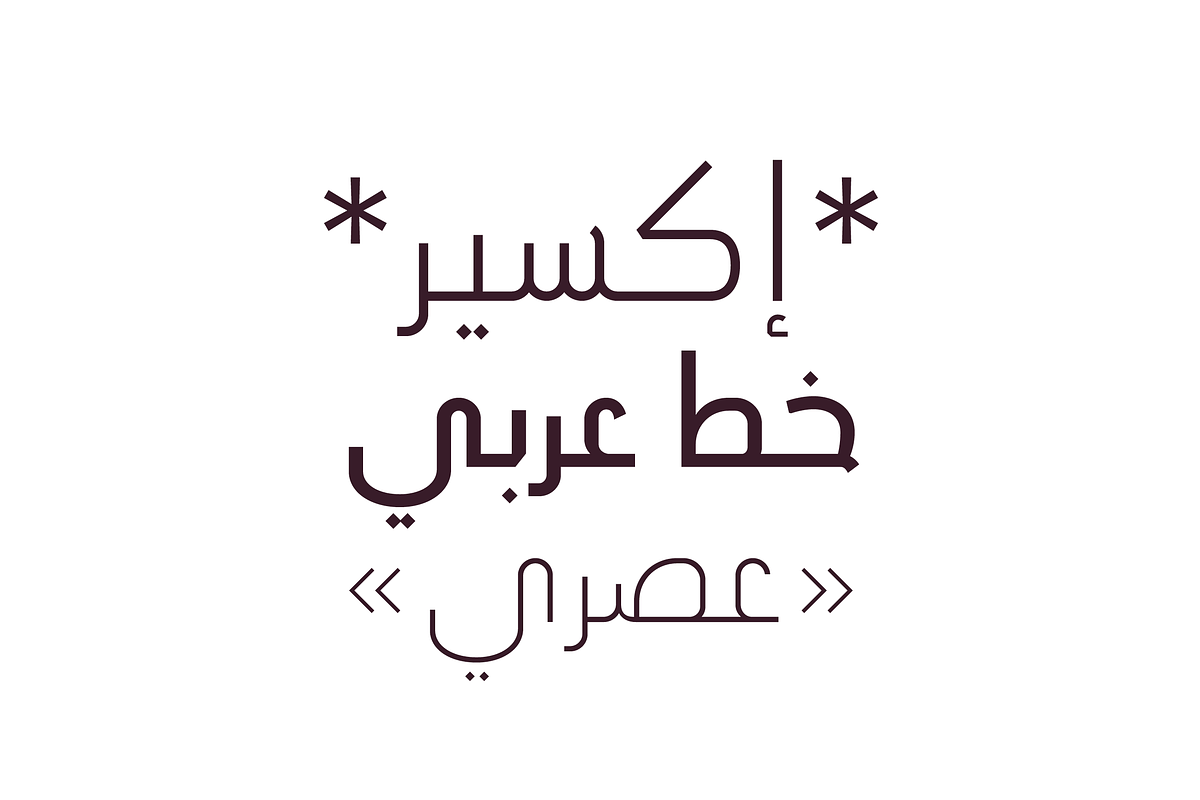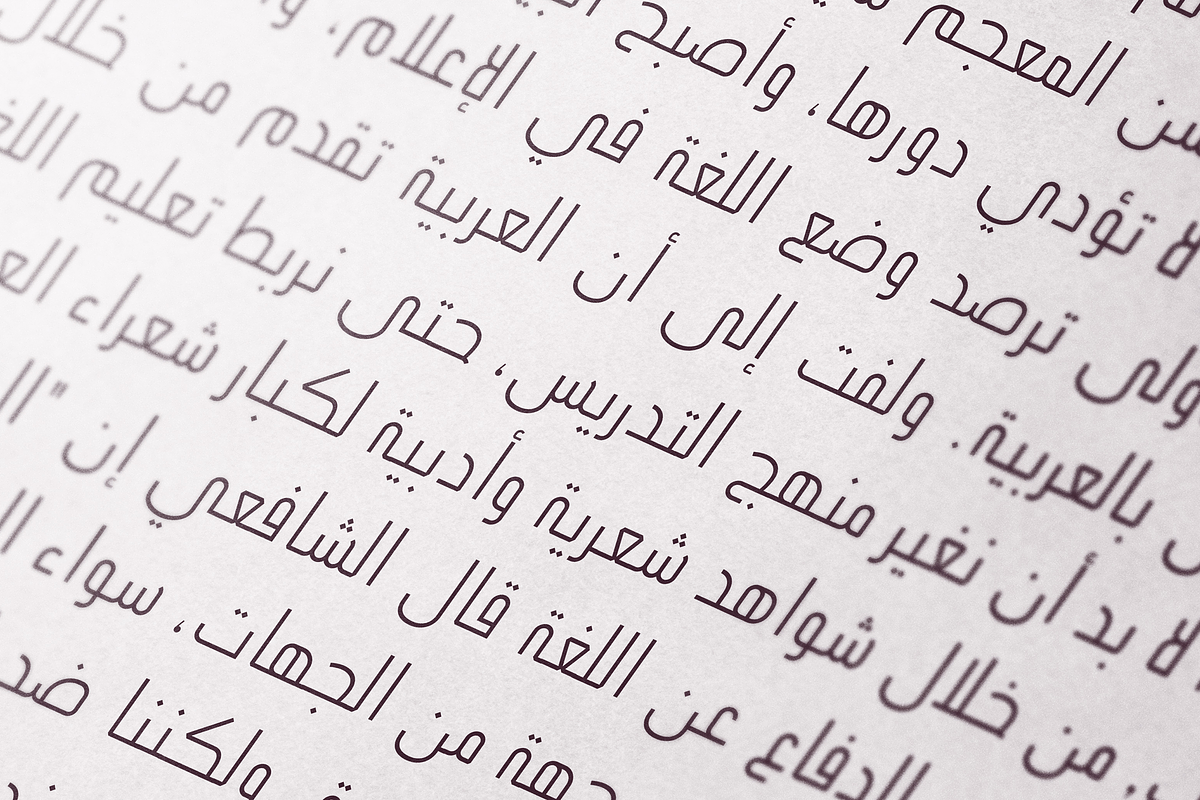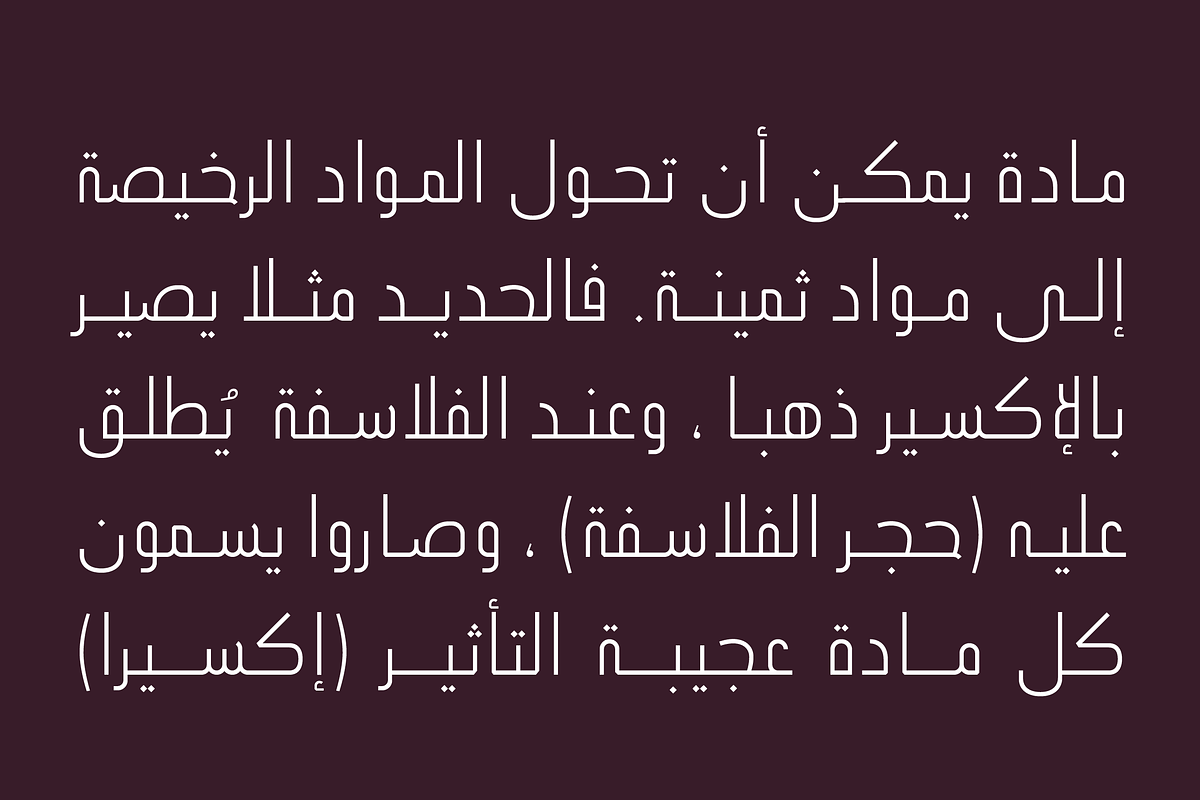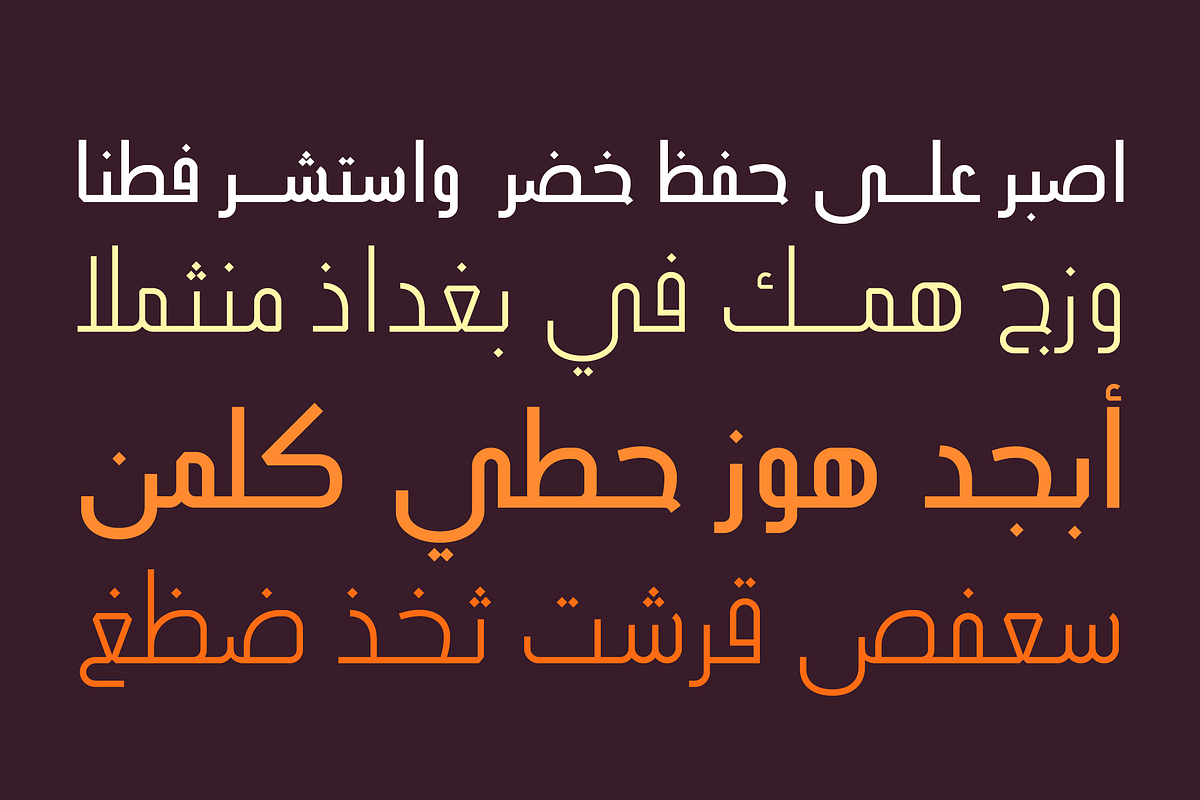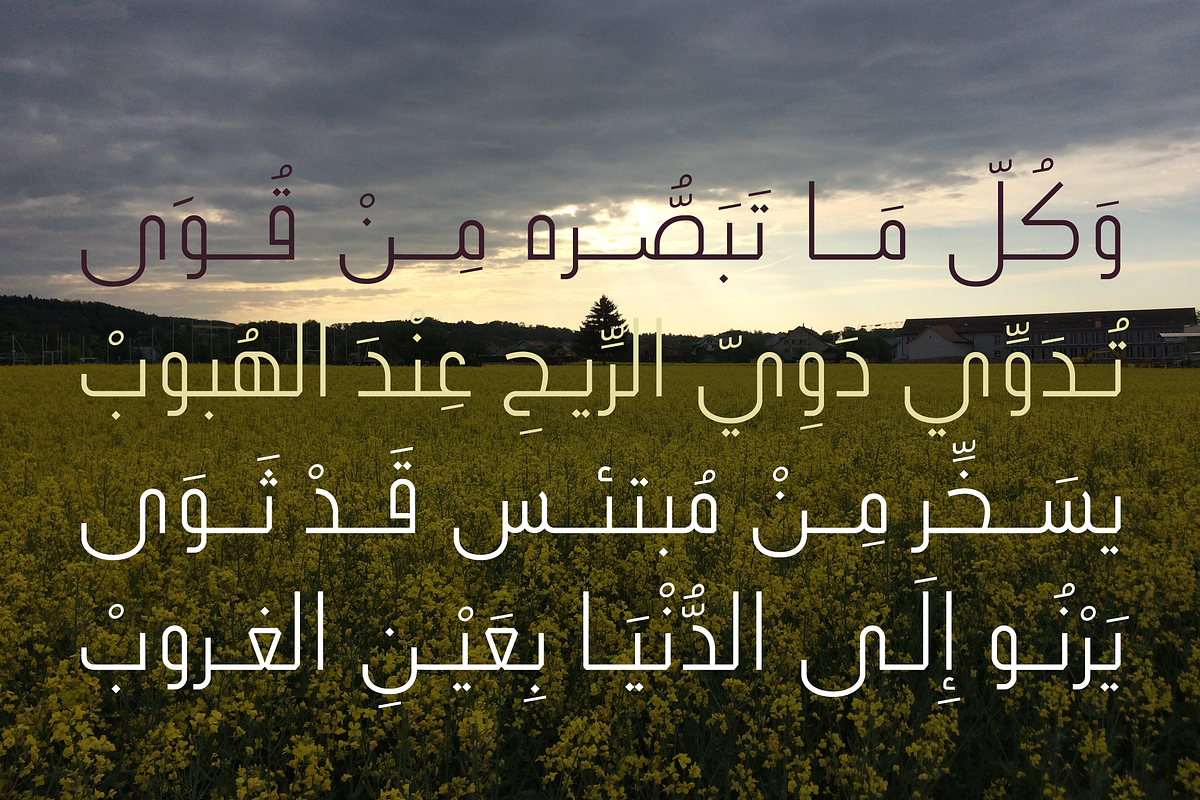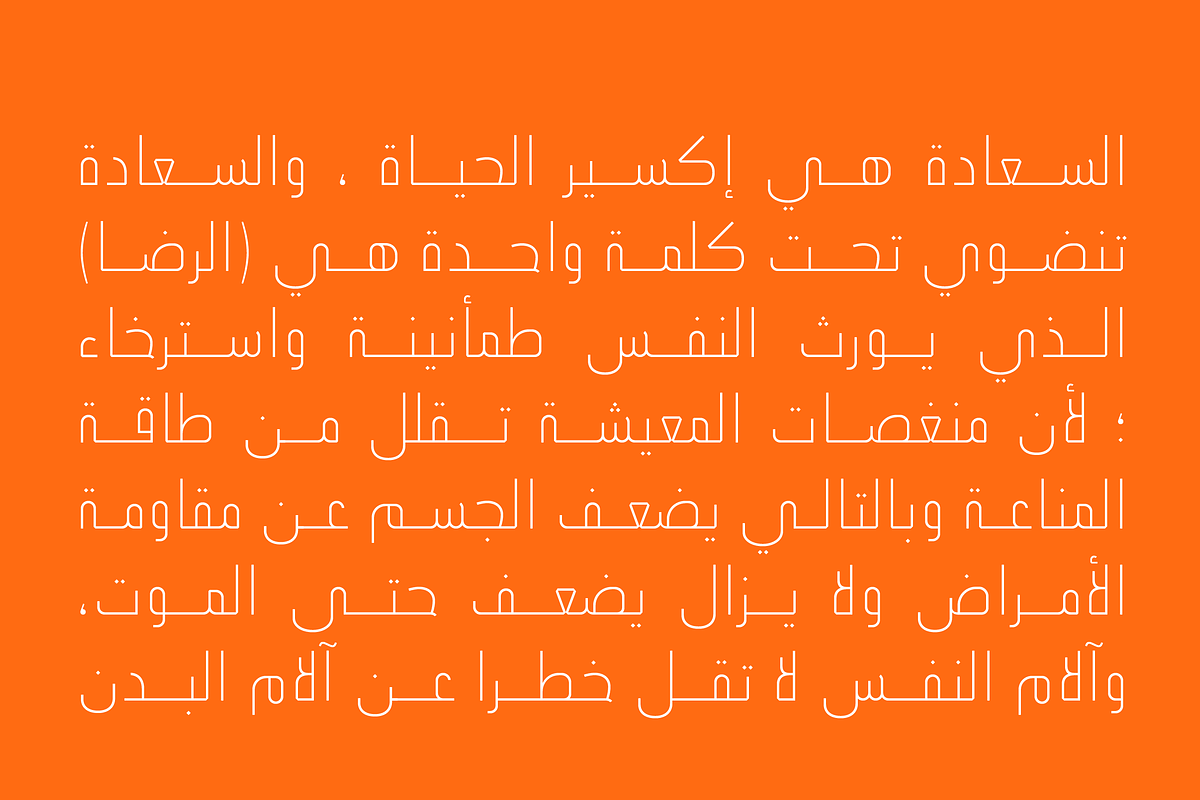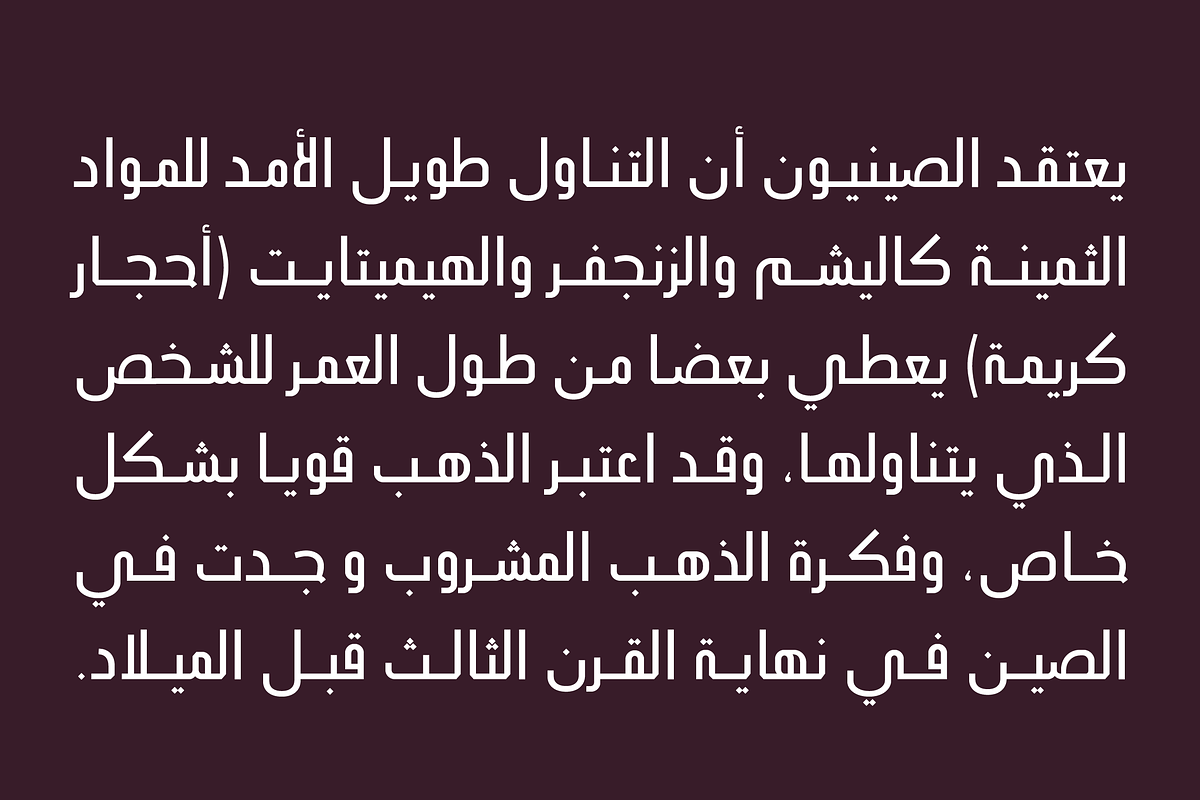
Ikseer - Arabic Font | خط إكسير
Ikseer is an Arabic typeface that combines simplicity with elegance. The font family supports Arabic, Farsi and Urdu and it consists of three weights (Light, Regular and Bold). Ikseer suits print and publication design in addition to web and mobile applications. Ikseer typeface supports WIndows, Mac OS and mobile applications.
- Ikseer Light
- Ikseer Regular
- Ikseer Bold